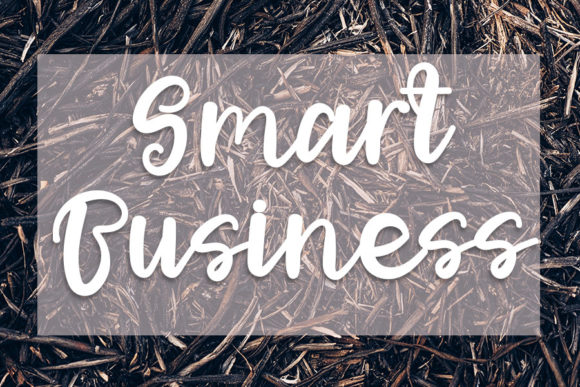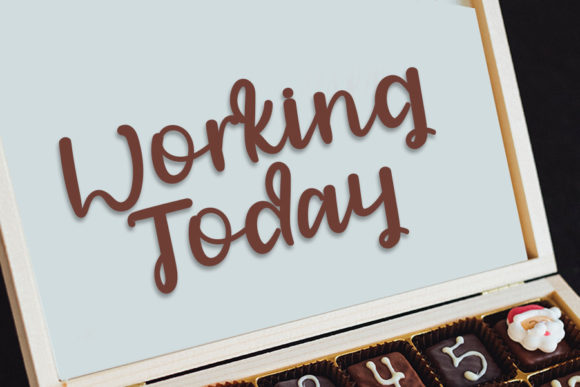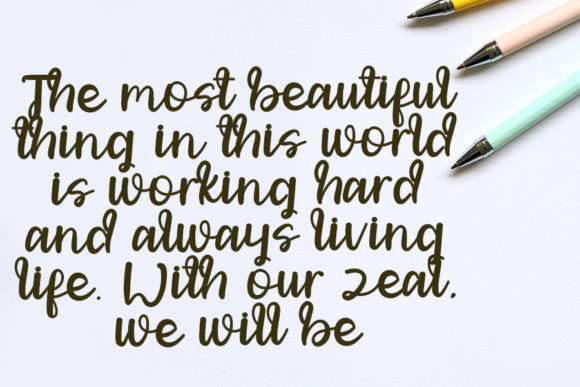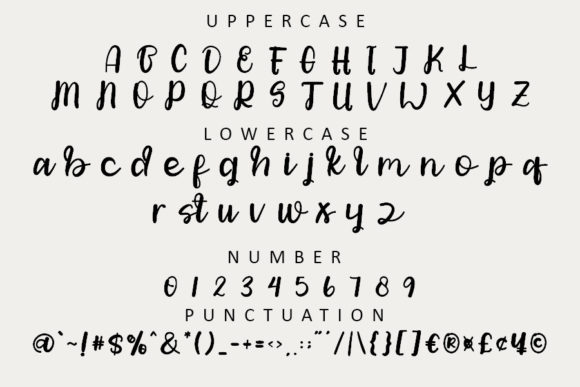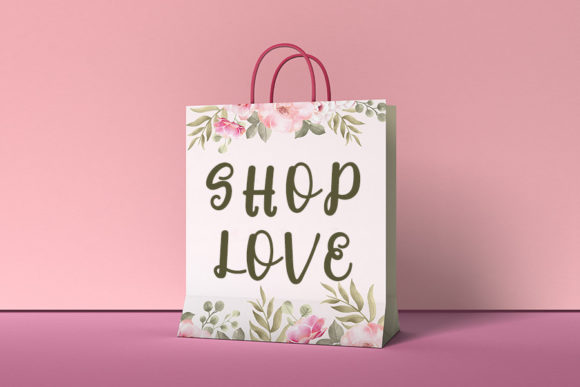
Introducing California Font: The Perfect Handwritten Font for Modern Designs
Are you a designer or crafter looking for a beautiful and versatile font to elevate your creative projects? Look no further than California Font, a stunning handwritten font that is sure to impress. With its modern look and feel, California Font is perfect for a wide range of applications, from branding and invitations to stationery, wedding designs, social media posts, and more.
What Makes California Font So Special?
California Font is a carefully crafted handwritten font that boasts a unique and modern aesthetic. Its flowing lines and elegant curves make it perfect for designs that require a touch of sophistication and style. Whether you’re creating a brand identity, designing an invitation, or crafting a social media post, California Font is sure to add a touch of class and professionalism to your work.
Key Features of California Font
- Modern Look and Feel: California Font has a distinctly modern look and feel that makes it perfect for contemporary designs.
- Handwritten Style: The font’s handwritten style adds a touch of personality and warmth to any design.
- Versatile: California Font is suitable for a wide range of applications, from branding and invitations to stationery, wedding designs, and social media posts.
- Elegant Curves: The font’s elegant curves and flowing lines make it perfect for designs that require a touch of sophistication and style.
Uses for California Font
California Font is an incredibly versatile font that can be used in a wide range of creative projects. Here are just a few ideas to get you started:
- Branding: Use California Font to create a unique and memorable brand identity that sets your business apart.
- Invitations: Create beautiful and elegant invitations for weddings, parties, and other special events.
- Stationery: Use California Font to create stylish and sophisticated stationery, including letterheads, business cards, and more.
- Wedding Designs: California Font is perfect for wedding designs, including wedding invitations, programs, and decorations.
- Social Media Posts: Add a touch of style and sophistication to your social media posts with California Font.
Why Choose California Font?
With so many fonts to choose from, why should you choose California Font? Here are just a few reasons:
- Unique and Modern: California Font has a unique and modern look that will set your designs apart from the crowd.
- High-Quality: The font is carefully crafted to ensure that it is of the highest quality and looks great in any design.
In conclusion, California Font is a beautiful and versatile handwritten font that is perfect for designers and crafters looking to add a touch of style and sophistication to their creative projects. With its modern look and feel, elegant curves, and flowing lines, California Font is sure to impress. Whether you’re creating a brand identity, designing an invitation, or crafting a social media post, California Font is the perfect choice. So why wait? Download California Font today and start creating stunning designs that will leave a lasting impression!